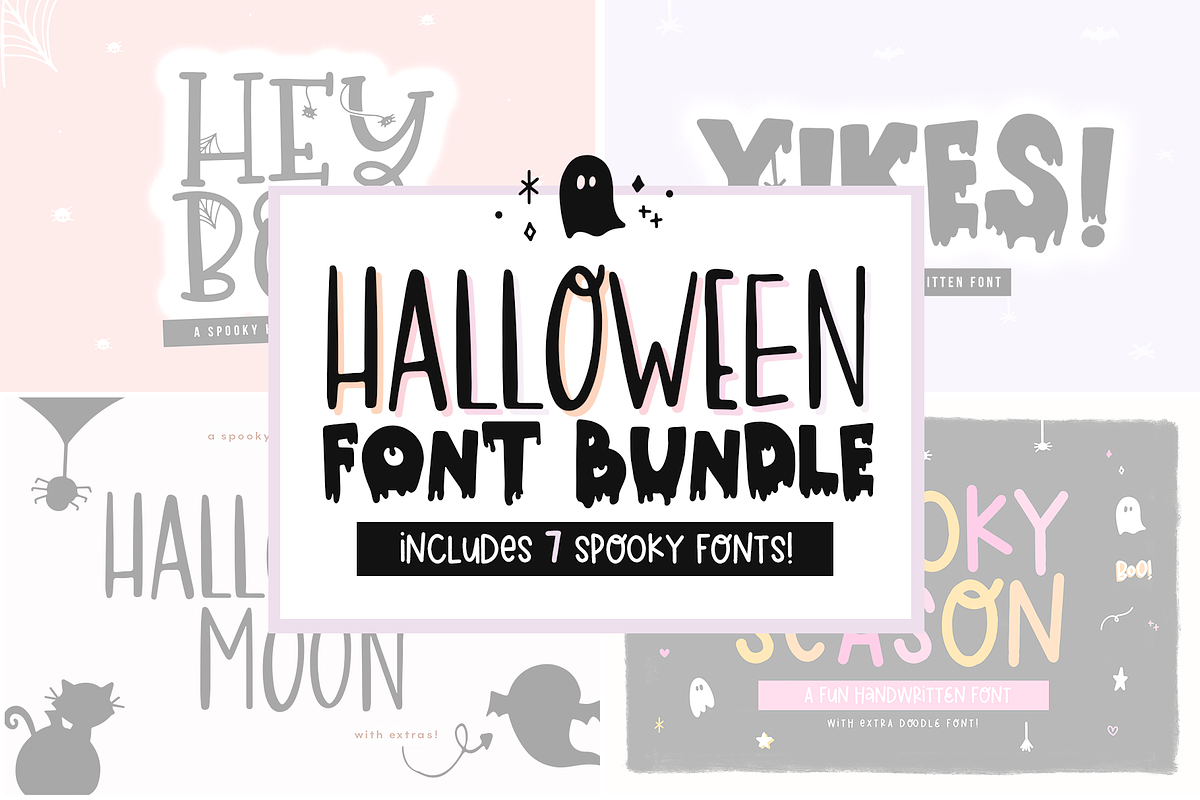
Halloween Font Bundle Free Download
Halloween Font Bundle Free Download is a spooky, fun-filled collection of fonts perfect for all your Halloween-themed projects. Featuring a mix of creepy, cute, gothic, and playful typefaces, this bundle is ideal for party invitations, posters, t-shirts, crafts, packaging, and social media graphics that need a frightfully good look.
Whether you're going for haunted house horror or pumpkin patch cute, this bundle offers the versatility and themed flair to make your Halloween projects pop. It’s a must-have for designers who love seasonal creativity with a twist.